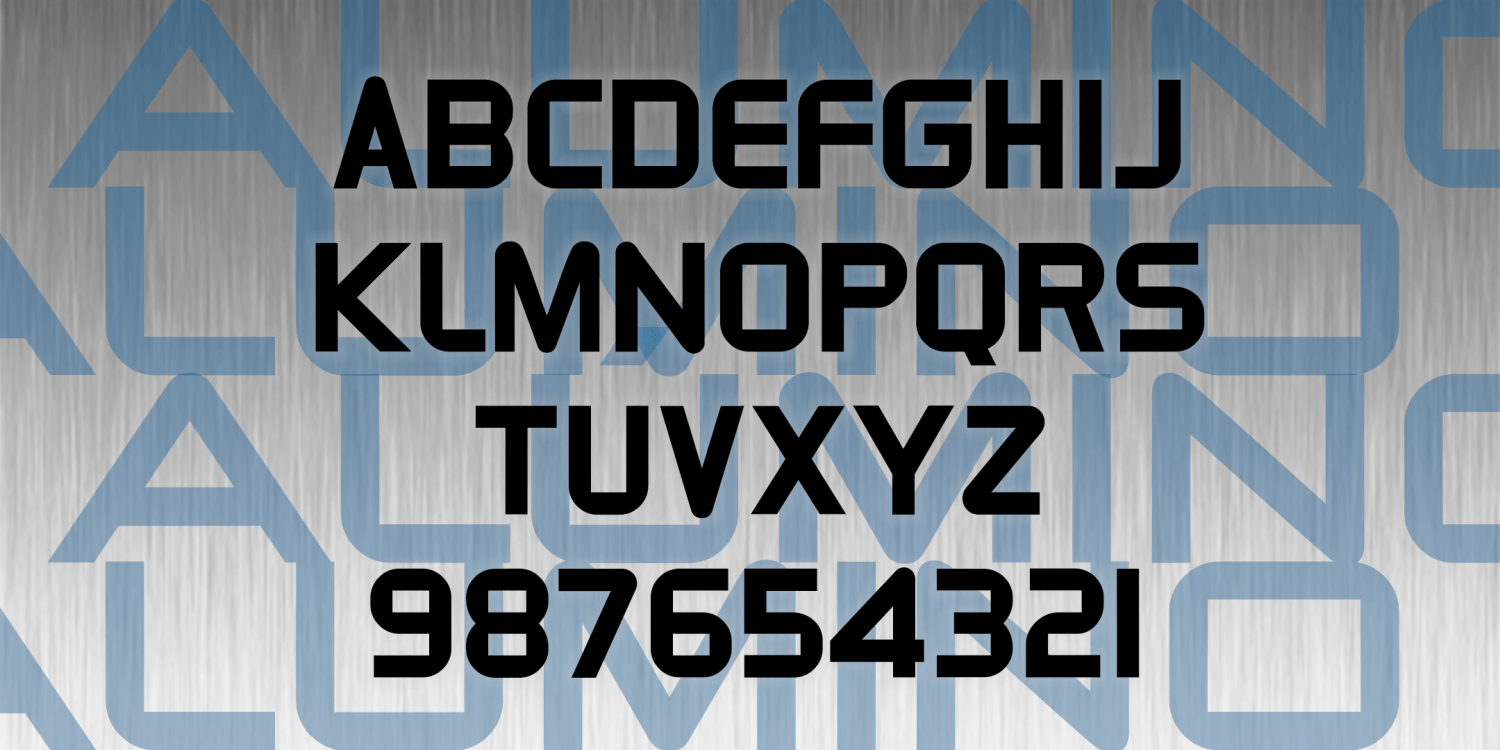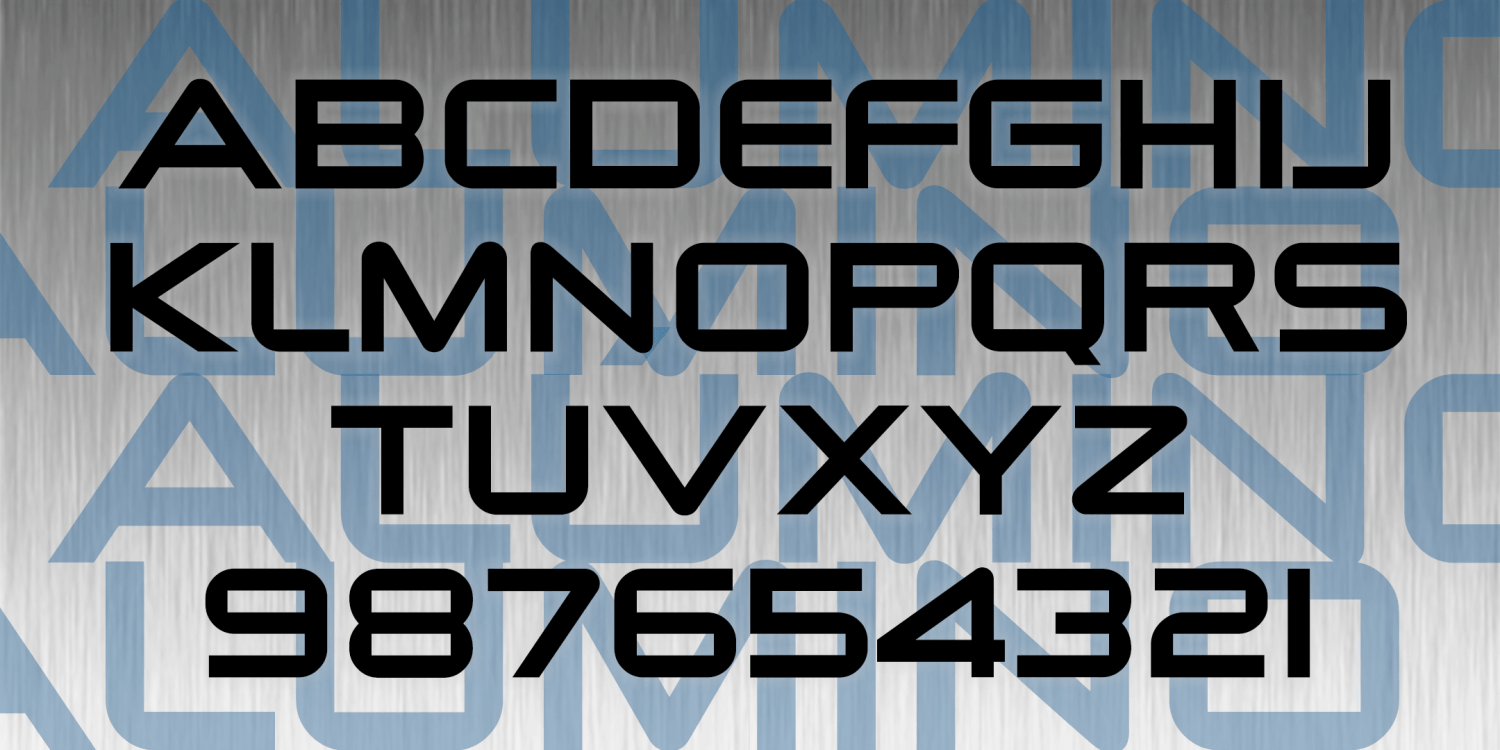
Alumino
About Alumino
Alumino was inspired by the font Saul Bass created for Alcoa, Inc, the aluminum company. It's sleek, clean, modern, light, and flexible. Also included is a narrower version in the same weight.